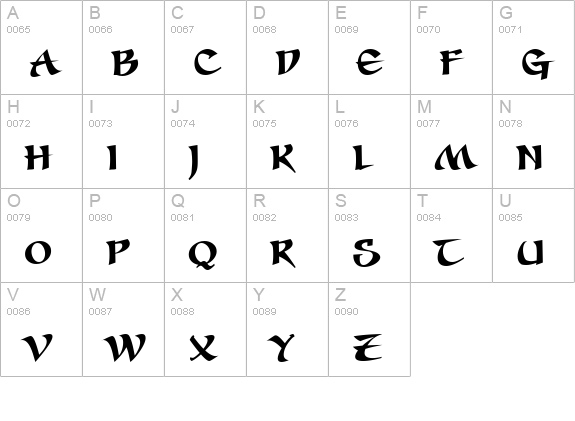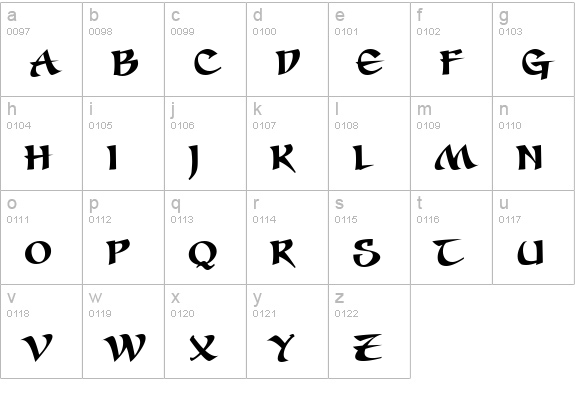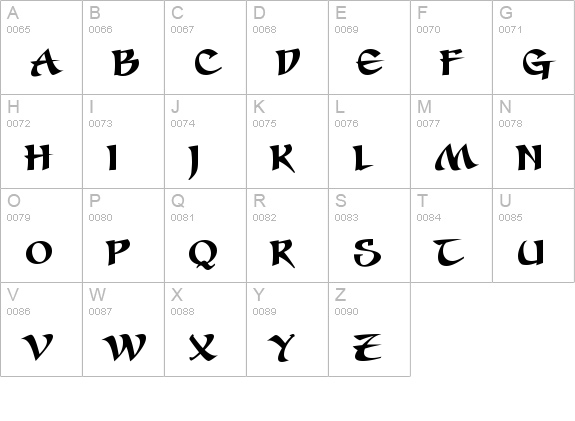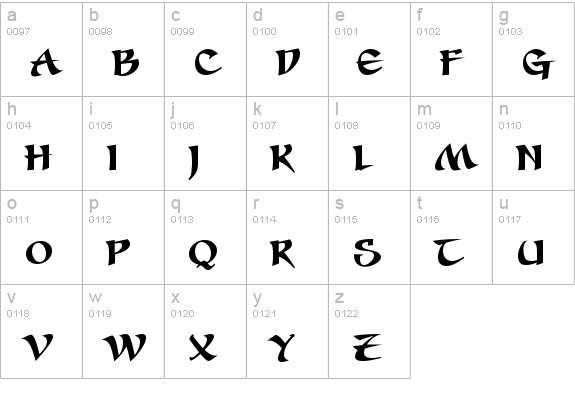
Introducing the captivating Seven Swordsmen BB font, a unique typeface that effortlessly blends elegance and strength. With its intricate details and sharp edges, this font embodies the spirit of the legendary swordsmen from ancient times. Seven Swordsmen BB is not just your average font; it is a masterpiece that adds a touch of sophistication and power to any design project. Whether you're creating a logo, designing a website, or crafting a poster, this font will make your text stand out and leave a lasting impression. What sets Seven Swordsmen BB apart is not only its stunning aesthetics but also its versatility. It can be used for both headlines and body text, ensuring consistency and coherence throughout your project. Its legibility ensures that your message is conveyed with clarity and impact. But that's not all – the best part is that Seven Swordsmen BB is absolutely free! Available for download exclusively at FontsMarket.com, this font allows you to unleash your creativity without breaking the bank. Whether you're a professional designer or a passionate hobbyist, this font is a valuable addition to your typographic arsenal. So why wait? Embrace the power and beauty of Seven Swordsmen BB and elevate your designs to new heights. Download it today from FontsMarket.com and let your imagination run wild.